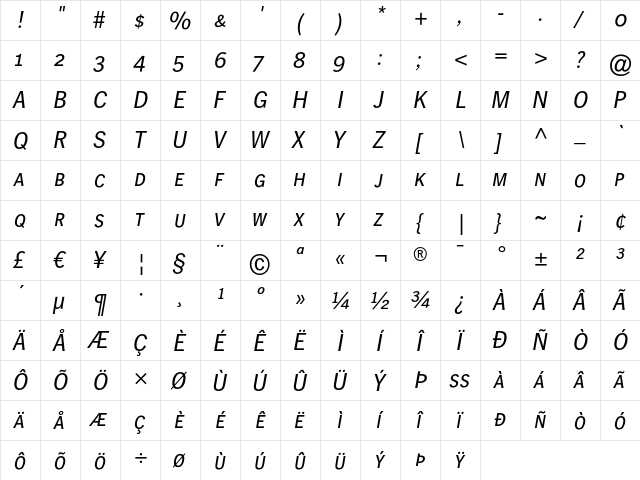
HeidelbergGothicSC Italic
Design Context for HeidelbergGothicSC Typeface
HeidelbergGothicSC takes a clean, functional approach — its unadorned letterforms prioritise legibility and work reliably across screen and print environments. The slanted form adds forward momentum and visual energy.
Font Pairing: Works well alongside a characterful serif or display font that can carry the expressive load while HeidelbergGothicSC handles the functional copy.
Pro Tip: Pair HeidelbergGothicSC with a display or serif font for headlines — its neutral character makes it an excellent supporting player in complex typographic systems.